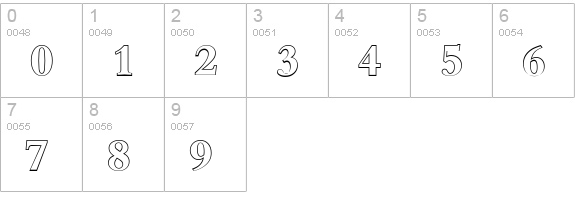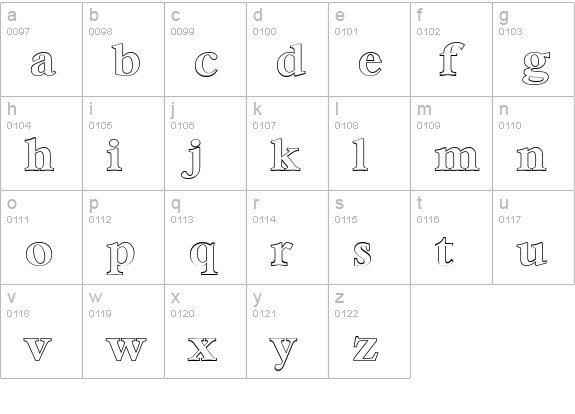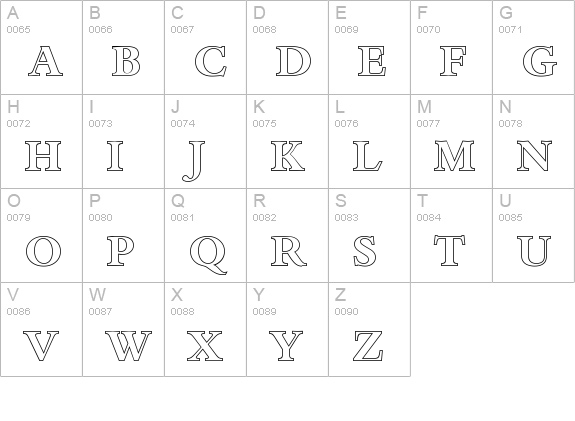
BernsteinOutline-Bold Font Details
BernsteinOutline-Bold is a strong, high-contrast variant in the BernsteinOutline typeface family \xE2\x80\x94 well suited to headlines, attention-grabbing titles, and strong calls-to-action.
BernsteinOutline-Bold font is a striking and bold typeface that exudes confidence and modernity. Its strong and distinctive outline style commands attention and adds a touch of sophistication to any design project. Perfect for headlines, titles, and branding materials, this font makes a bold statement while maintaining a clean and professional look. What's even better is that BernsteinOutline-Bold font is available for free download at FontsMarket.com! This means you can easily access and use this eye-catching font for all your creative endeavors without any cost. Don't miss out on the opportunity to enhance your designs with this versatile and impactful typeface. Download BernsteinOutline-Bold today and elevate your projects to the next level!